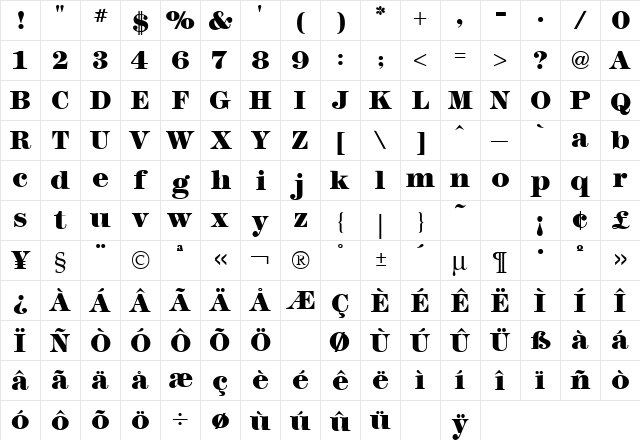
Modern No. 216 Heavy Regular
Design Context for Modern No. 216 Heavy Typeface
Modern No. 216 Heavy takes a measured approach to typography — its balanced proportions and neutral character make it a reliable workhorse for both digital and print work.